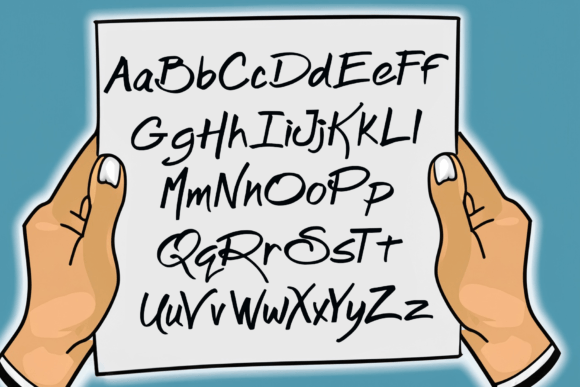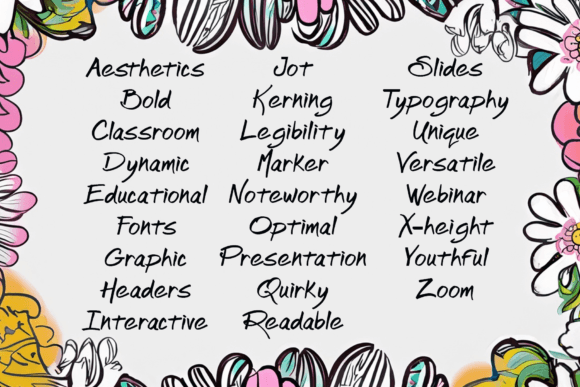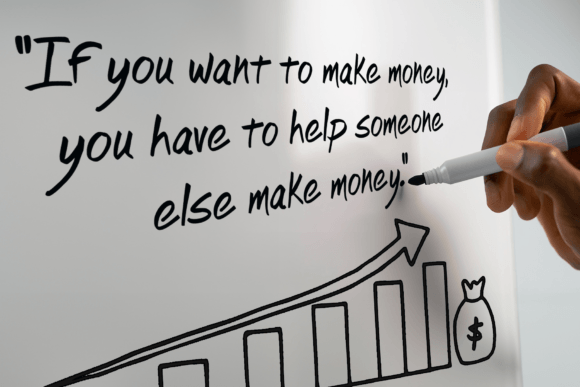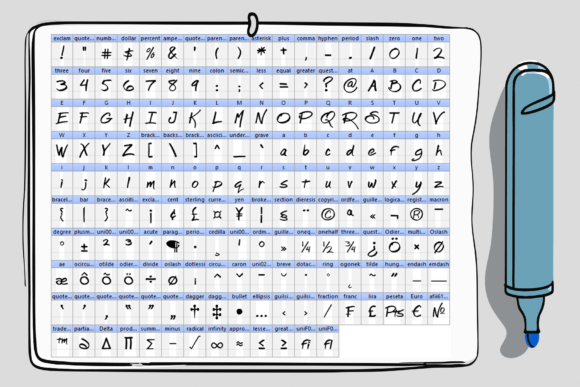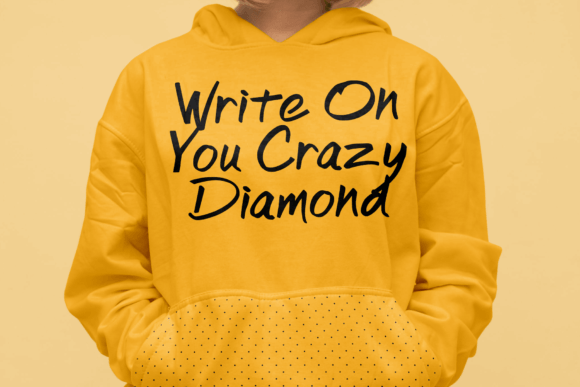
Introducing BoardWrite Font: Bringing the Tactile Feel of Whiteboard Marker Writing to Your Digital Creations
In the world of digital design, finding the perfect font that captures the essence of hand-written expressions can be a daunting task. However, with BoardWrite, a font specifically designed to mimic the look and feel of whiteboard marker writing, you can now add a touch of personality and tactility to your digital creations. In this article, we’ll explore the features and benefits of BoardWrite, and how it can transform your presentations, educational materials, and creative projects.
The Inspiration Behind BoardWrite
BoardWrite is more than just a font – it’s an experience. Inspired by the imperfect yet charming strokes of a whiteboard marker, this typeface aims to bridge the gap between traditional handwriting and digital typography. By replicating the subtle variations in line width, texture, and expressiveness, BoardWrite brings a sense of authenticity and human touch to your digital content.
Key Features of BoardWrite
- Readability: BoardWrite is designed with clarity in mind, ensuring that your message is conveyed effectively, even at smaller font sizes.
- Dynamic Expression: With its unique texture and stroke variations, BoardWrite allows you to add personality and flair to your text, making it perfect for creative projects and presentations.
- Versatility: This font is suitable for a wide range of applications, from educational materials and blog posts to social media graphics and marketing collateral.
BoardWrite offers numerous benefits for designers and crafters looking to elevate their digital creations:
- Time-Saving: With BoardWrite, you can achieve the look of hand-written text without the need for tedious manual lettering or illustration.
- Consistency: This font ensures consistency in style and tone across your projects, making it ideal for branding and marketing applications.
- Customization: BoardWrite can be easily customized to fit your project’s specific needs, from adjusting font sizes and colors to experimenting with different textures and effects.
Using BoardWrite in Your Projects
Tips and Tricks for Getting the Most Out of BoardWrite
To maximize the impact of BoardWrite, consider the following tips:
- Mix and Match: Combine BoardWrite with other fonts to create visual interest and hierarchy in your designs.
- Play with Texture: Experiment with different textures and backgrounds to enhance the tactile feel of BoardWrite.
- Pay Attention to Line Height: Adjust line height and spacing to ensure optimal readability and flow.
BoardWrite is a game-changing font that brings the warmth and expressiveness of whiteboard marker writing to your digital creations. With its unique blend of readability, dynamic expression, and versatility, this typeface is poised to become a favorite among designers, crafters, and educators. Whether you’re looking to add a personal touch to your presentations, create engaging educational materials, or simply stand out in a crowded digital landscape, BoardWrite is the perfect tool for the job.